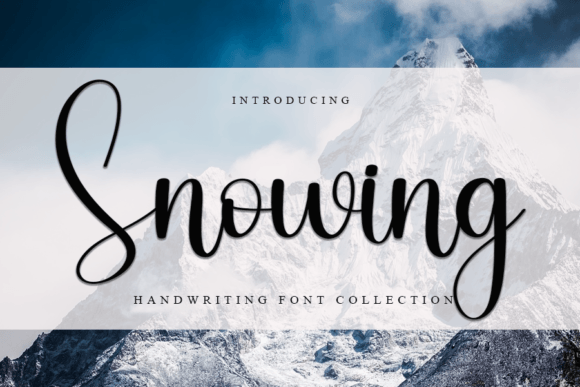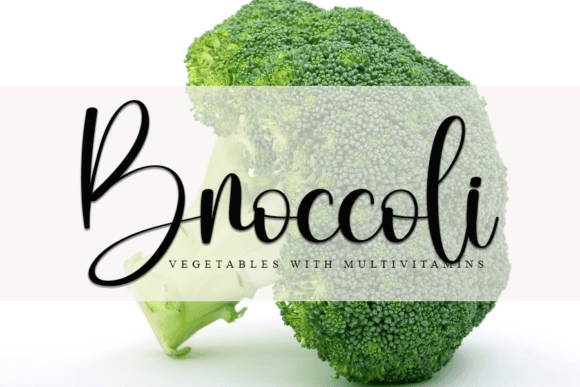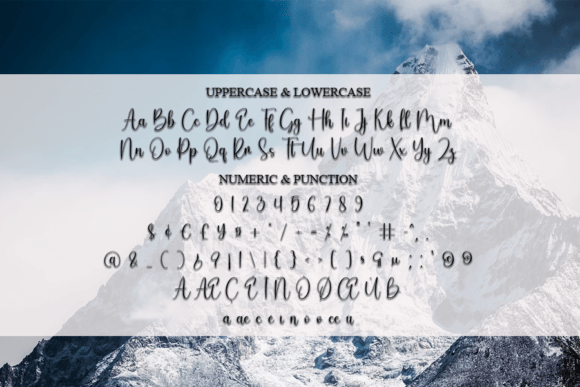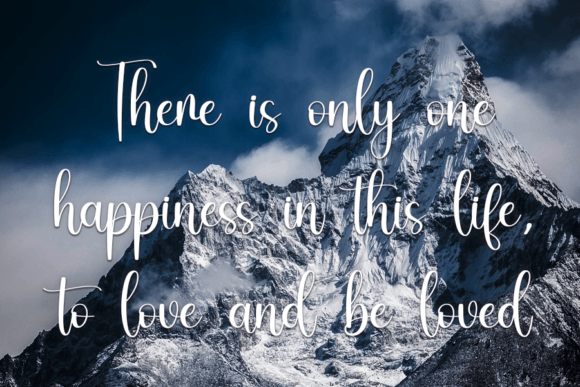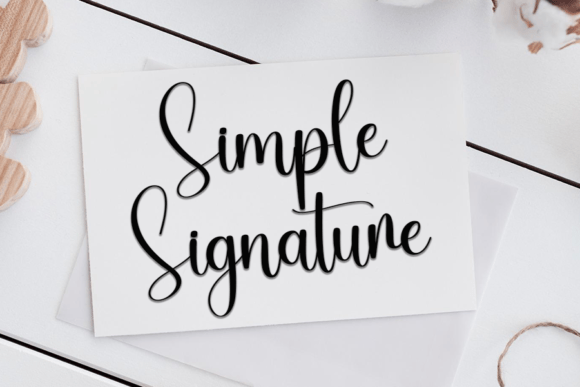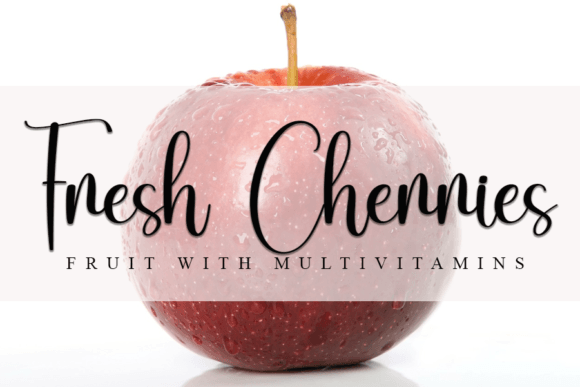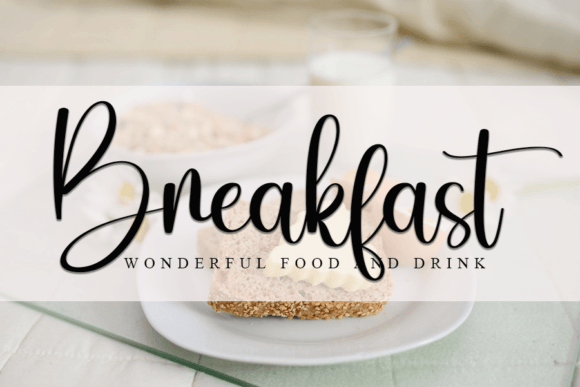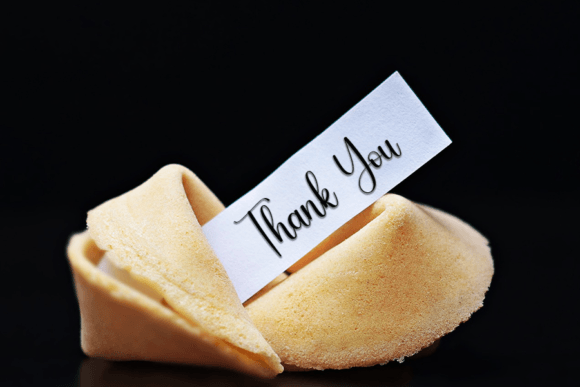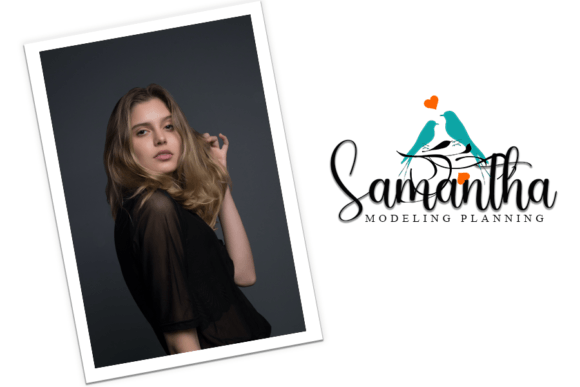
Snowing Font
The Snowing Font Download is a bold and beautiful script font designed to bring energy and elegance to creative projects. With smooth handwritten curves and a strong visual impact, it fits both personal crafts and professional branding. Whether you design greeting cards, posters, or digital media, Snowing adds sophistication and warmth.
A Bold Script with Elegant Style
The Snowing script font combines confident handwritten strokes with a modern, stylish rhythm. As a result, it feels eye-catching and professional. Furthermore, it adapts seamlessly to both small stationery and large-scale displays, which makes it a versatile font choice.
Handwritten fonts always make stationery more memorable. The Snowing Font is perfect for wedding invitations, birthday notes, thank you cards, and holiday greetings. Because of its bold handwritten strokes, each design feels polished and heartfelt. In addition, it helps create unique and lasting impressions.
Branding and Logo Design with Snowing Font
Typography sets the tone for brand identity. The Snowing handwritten font is excellent for boutique logos, product packaging, and advertising. Its bold handwritten look gives businesses a professional yet approachable style. Therefore, it is especially useful for lifestyle, fashion, and creative industries.
Posters, Titles, and Creative Displays
The Snowing Font Download also performs beautifully in posters, book covers, magazines, and banners. It keeps its clarity across all sizes while adding handwritten elegance. Consequently, it is a practical choice for designers seeking both creativity and readability.
In today’s digital world, fonts must be flexible and engaging. The Snowing typeface integrates smoothly into Instagram posts, YouTube thumbnails, Pinterest graphics, and blogs. Because of its bold handwritten energy, it ensures digital projects look modern and attention-grabbing.
Why Designers Choose Snowing Typeface
Designers often look for fonts that balance style and usability. The Snowing handwritten script keeps its bold charm while staying legible. This makes it dependable for professionals and hobbyists alike. Moreover, its timeless design ensures it will remain relevant for future creative work.
Add Bold Charm to Your Projects Today